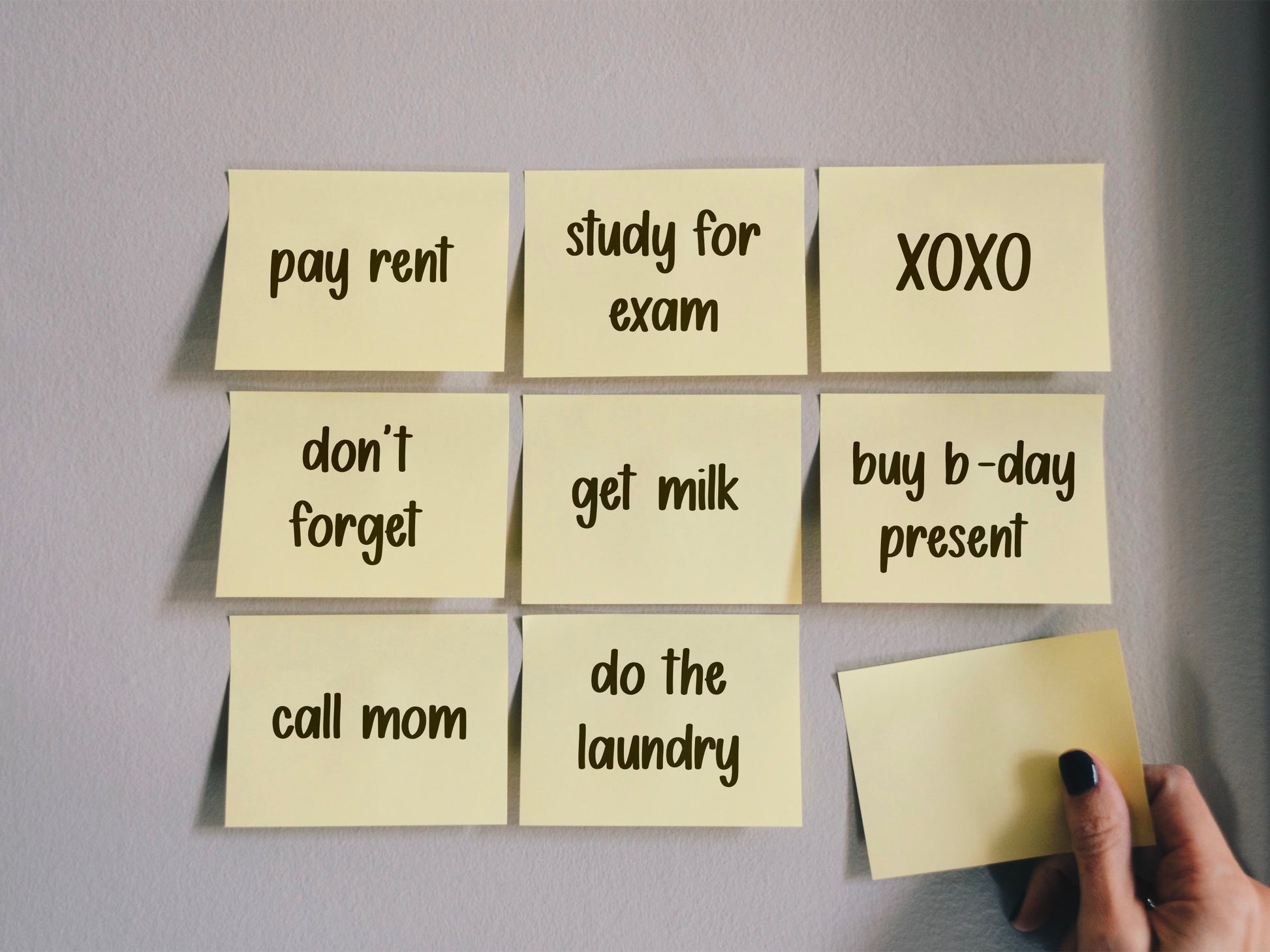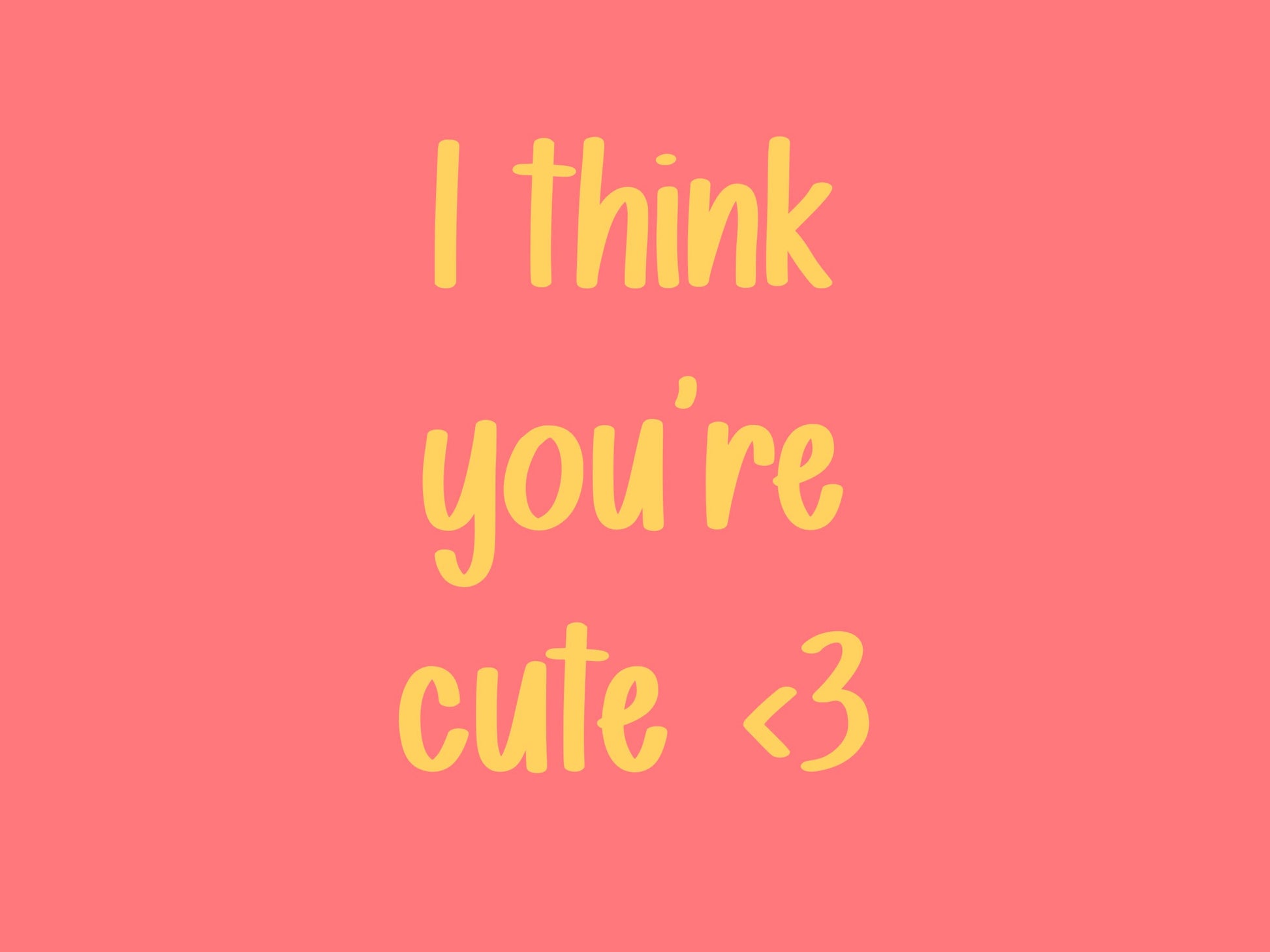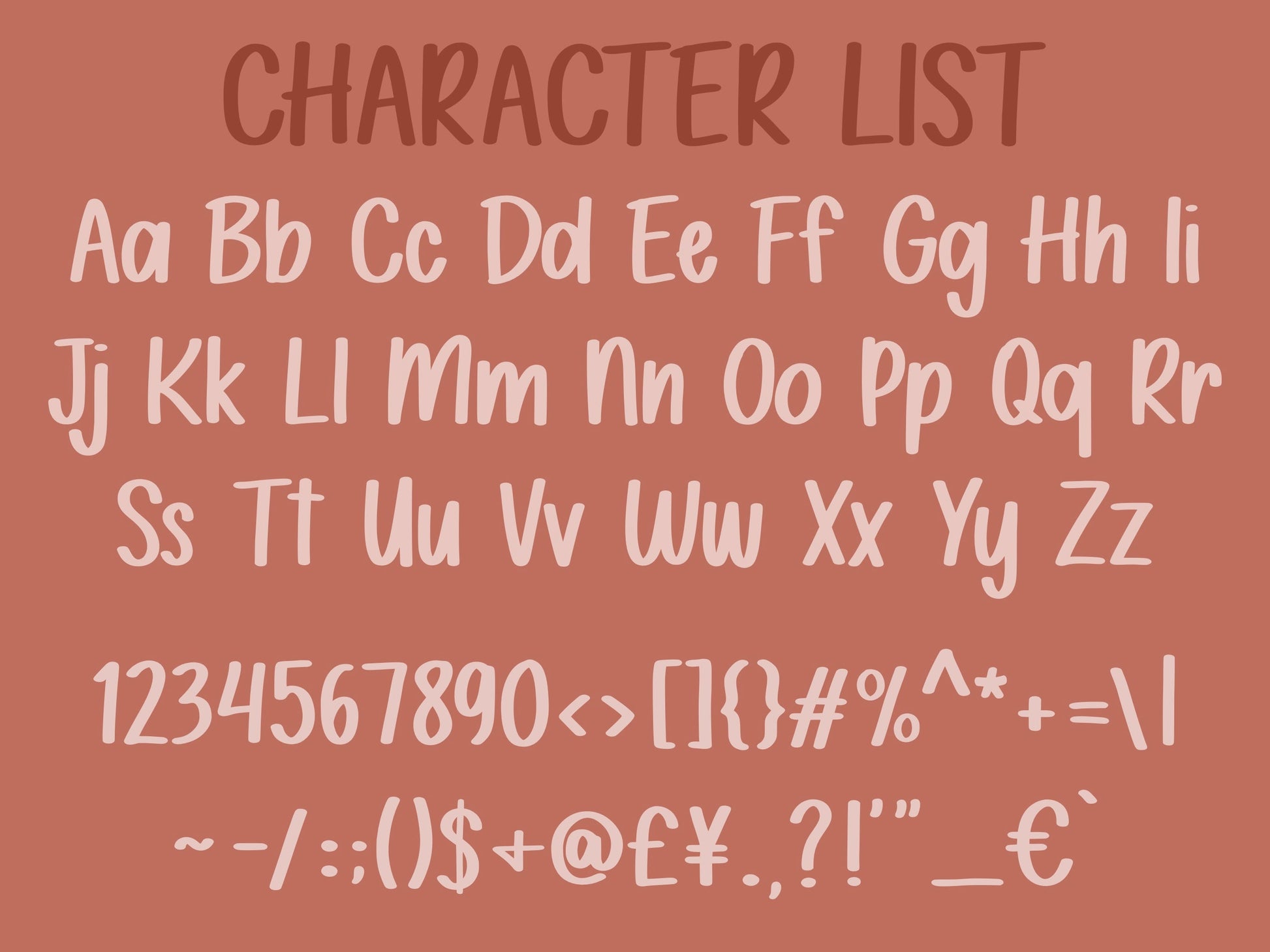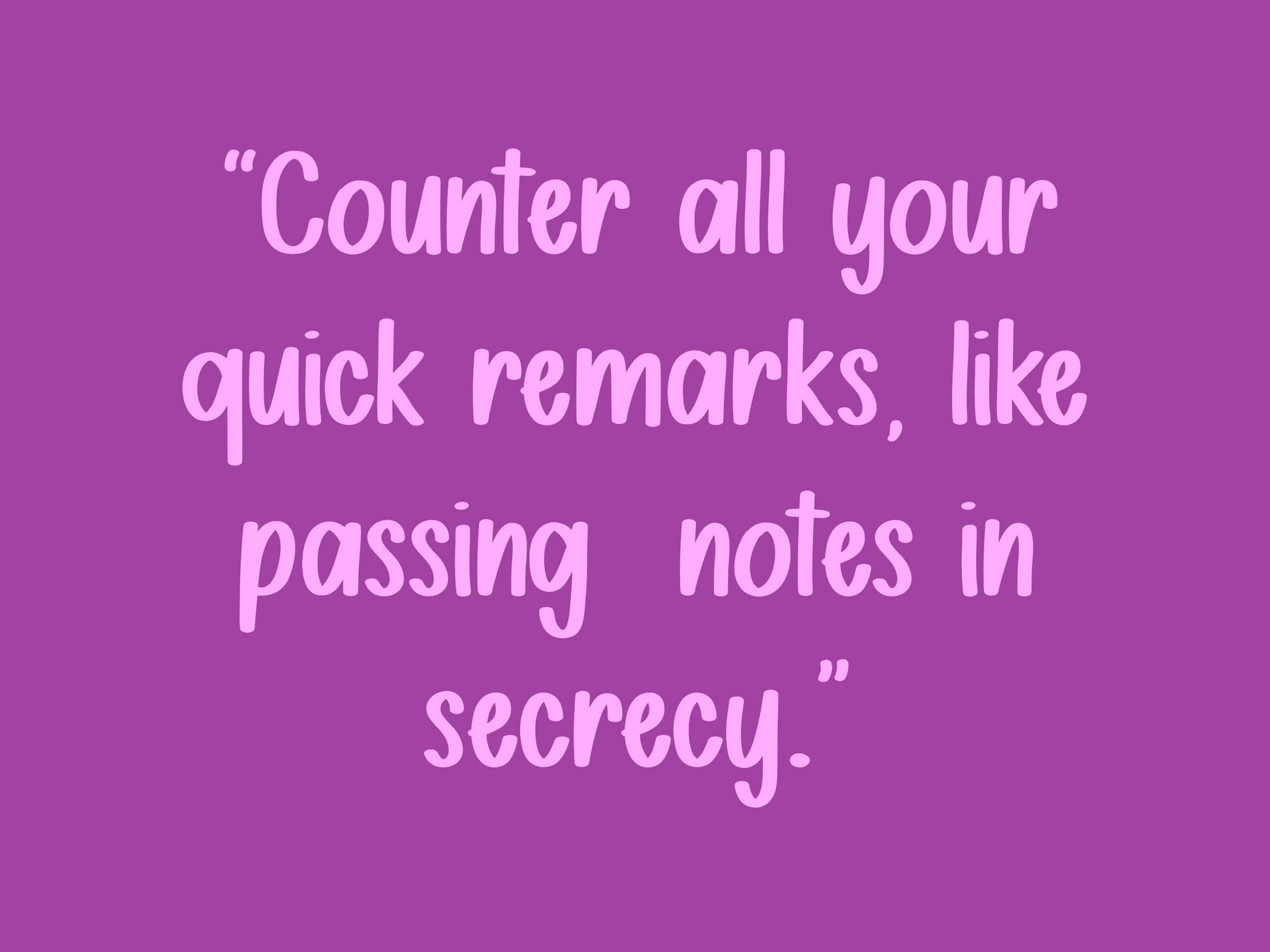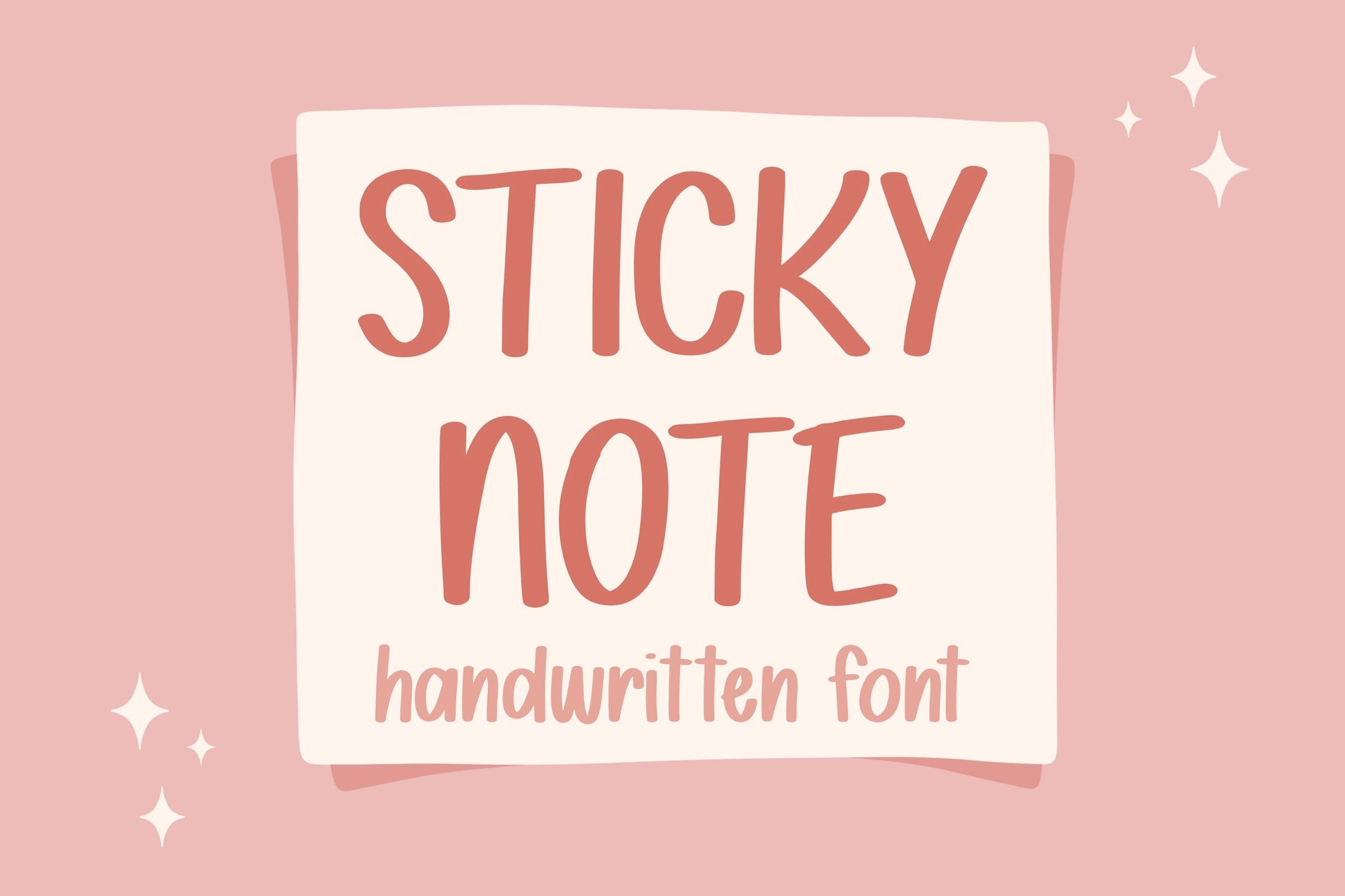
Sticky Note Handwritten Font
This is my Sticky Note handwritten/hand drawn font. This unique font will add a fun, quirky, handmade touch to your design!